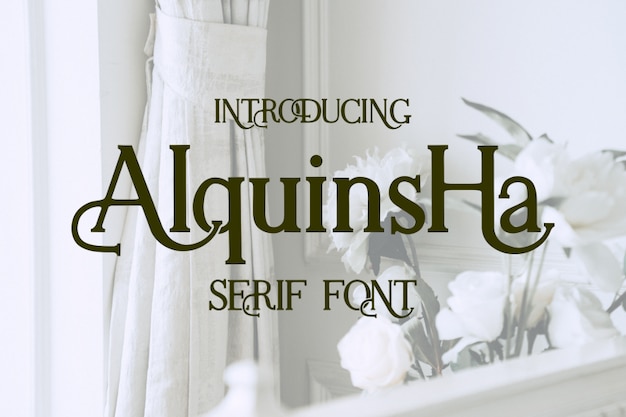
Alquinsha
Alquinsha Font
Zerologic Studio
Elegance meets simplicity in the Alquinsha font. Its graceful strokes and subtle curves bring a pretty and refined touch to any project. Whether you're designing invitations, branding, or any creative endeavor, Alquinsha adds a touch of sophistication without overwhelming the senses. This font's understated beauty is its standout feature, making it an ideal choice for those seeking an elegant and charming typography solution.